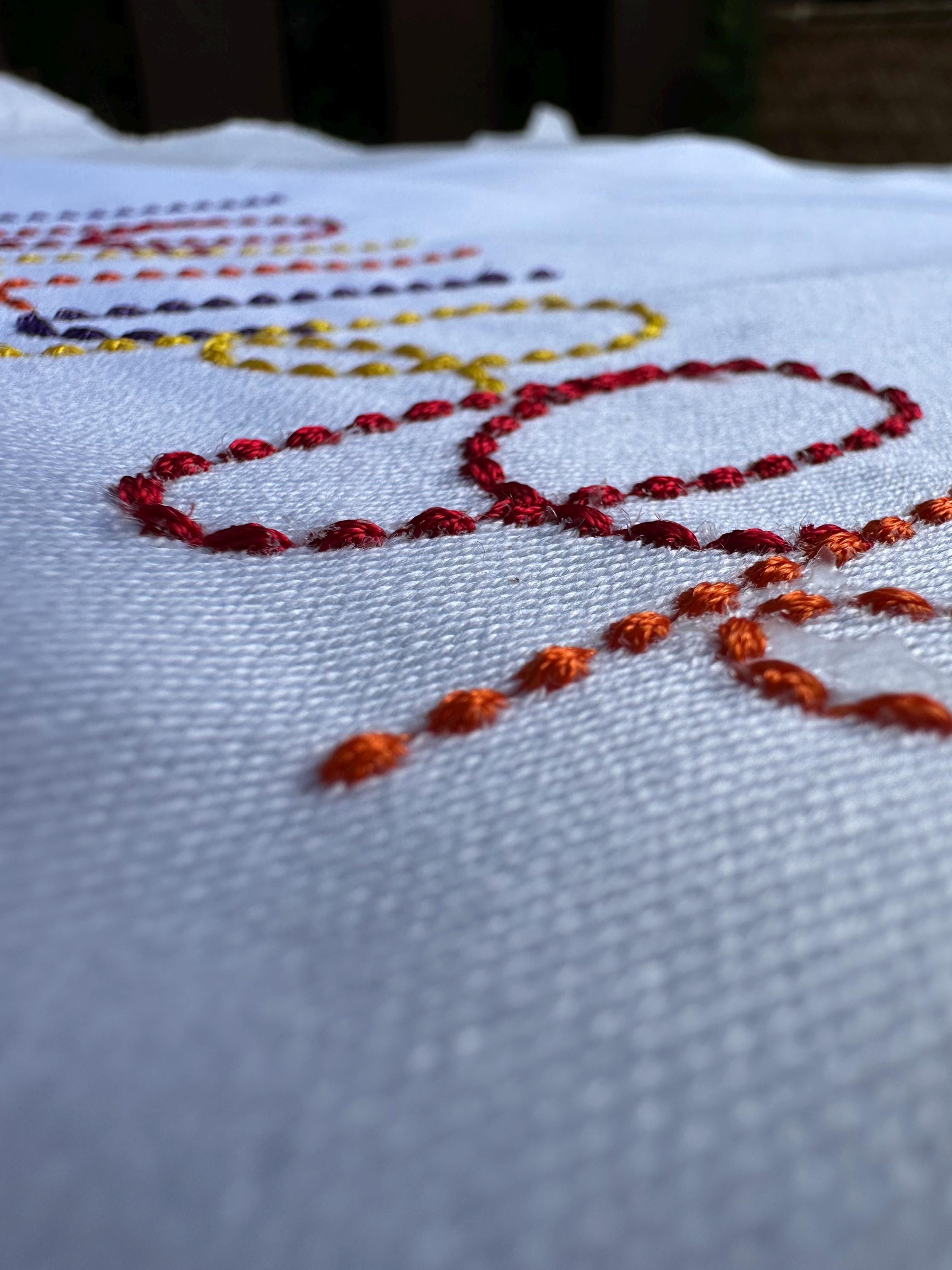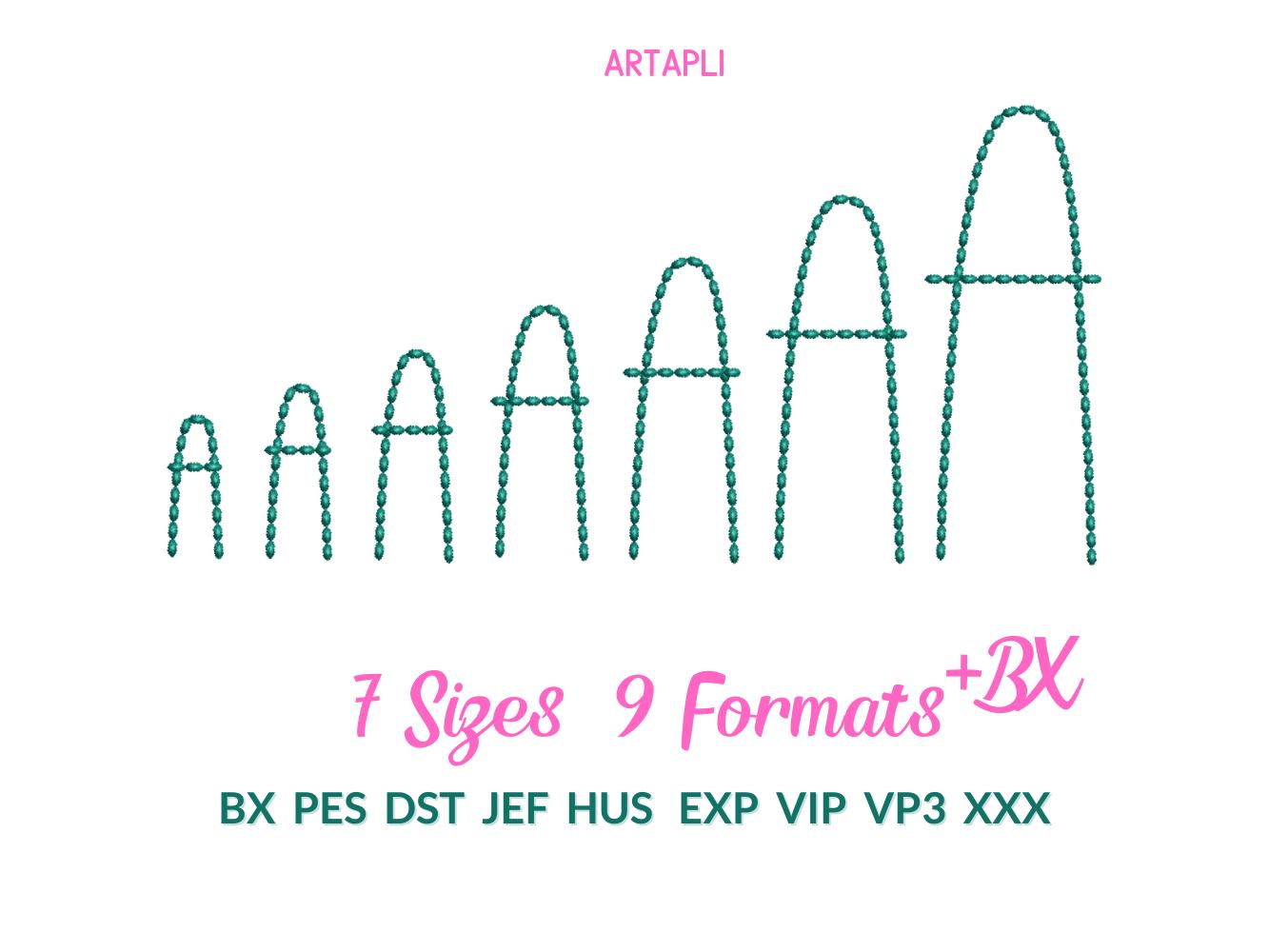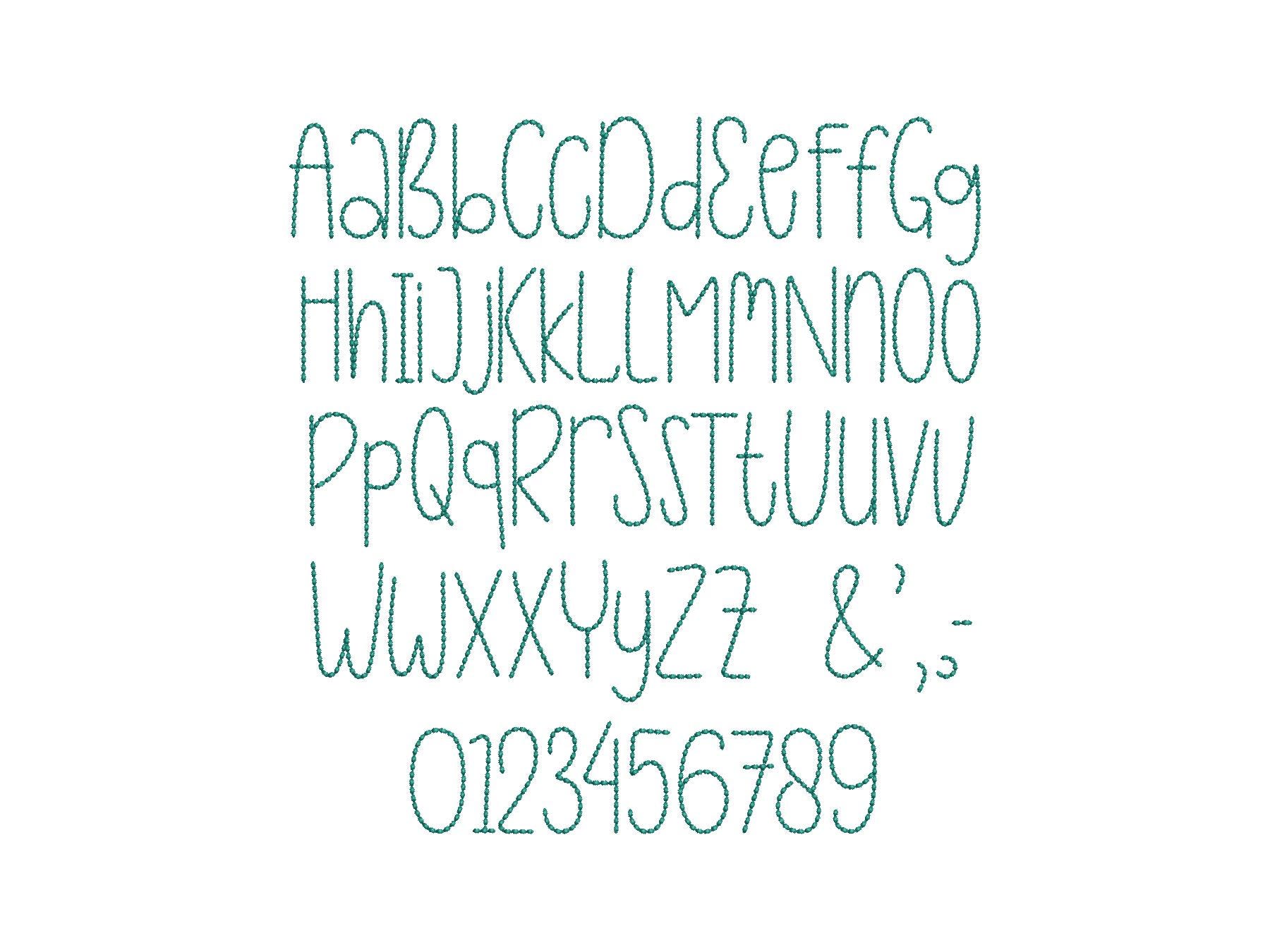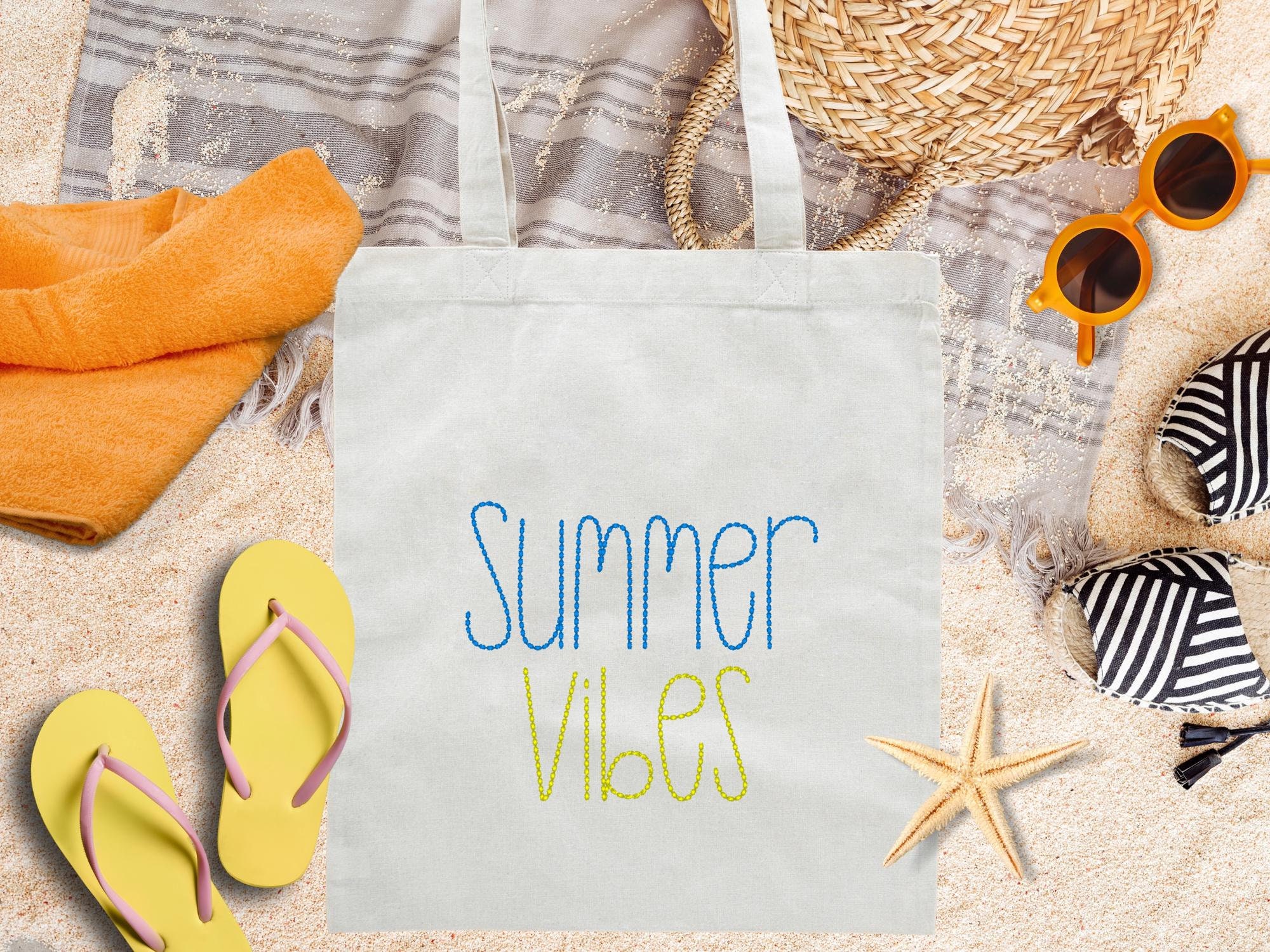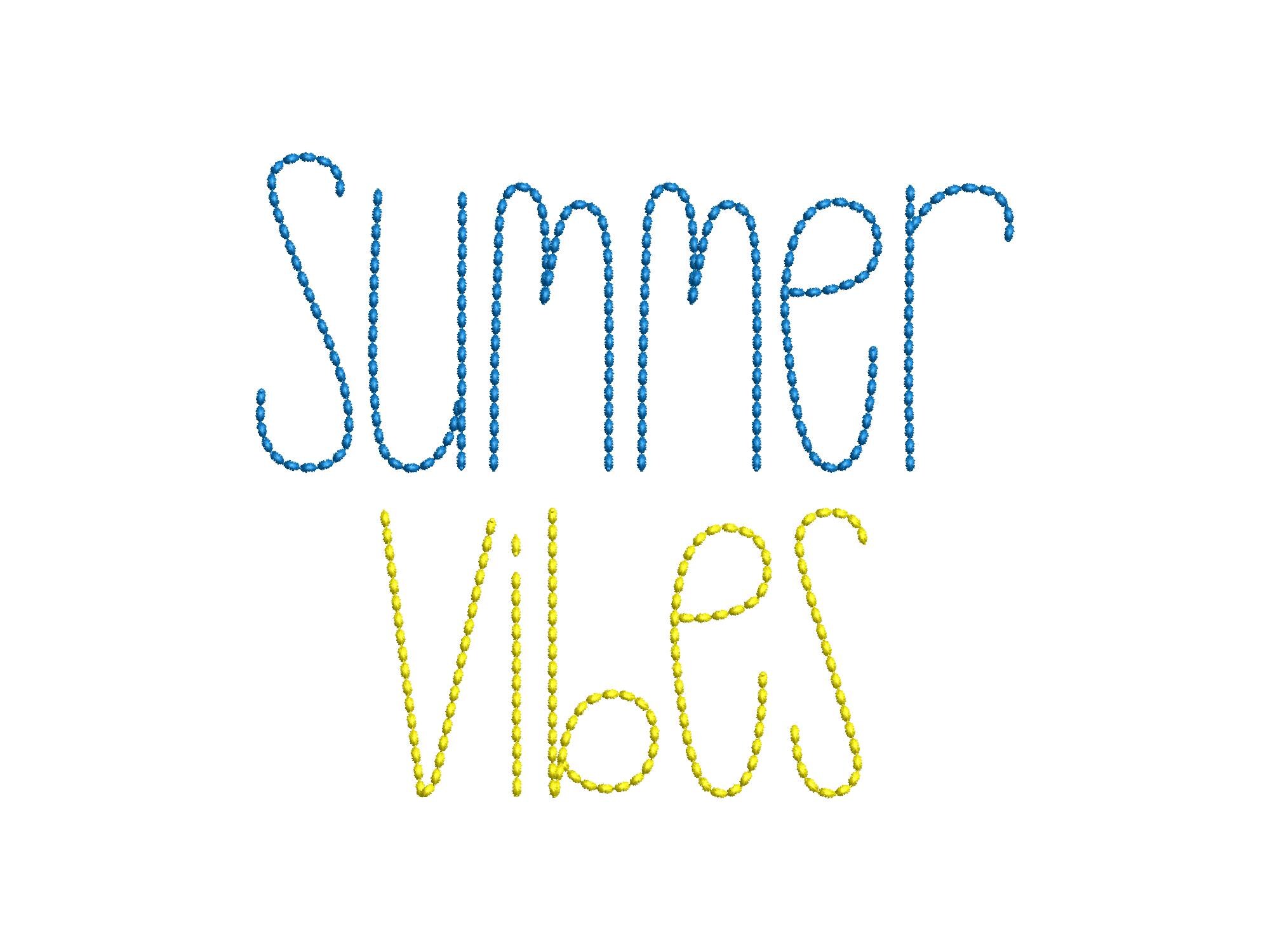
Hand stitch effect FONT machine embroidery designs in multiple sizes from 1 to 3.4 inches alphabet letters numbers seed bean stitch, BX includes
Entire alphabet uppercase and lowercase letters Aa-Zz, numbers 0-9, and punctuation.
This font turned out so fun! Really did look hand stitched